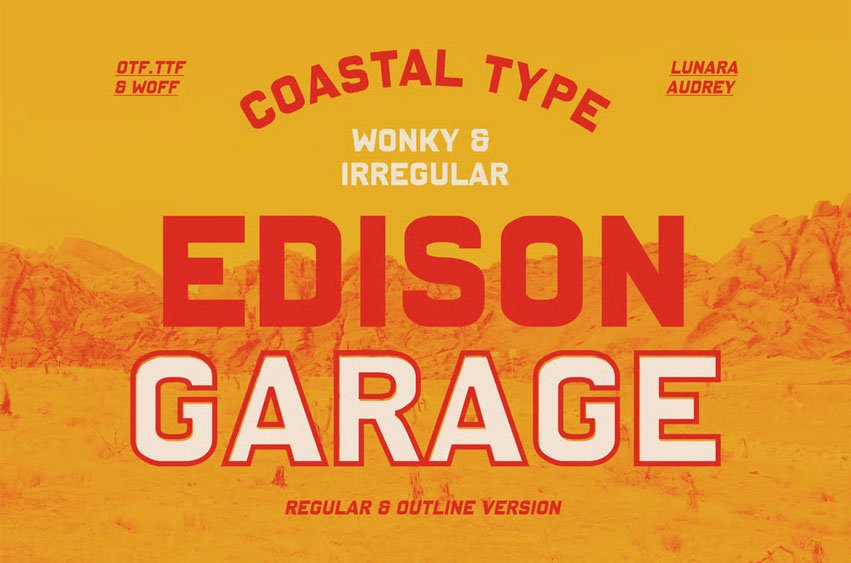
Edison Garage Font is a love letter to imperfection. Inspired by the quirky, hand-painted sign on an abandoned desert garage, this font brings a traditional charm with a playful twist. Its uneven, wonky letterforms reflect the human touch of a bygone era—when every sign was crafted with care, personality, and a bit of desert dust.
With its nostalgic, weathered feel, Edison Garage is perfect for projects that celebrate tradition, creativity, and authenticity. Whether you’re designing for rustic branding, vintage-inspired posters, or anything that needs a handcrafted vibe, this font delivers character in every curve.
Let Edison Garage tell your story with charm and a hint of desert mystery.